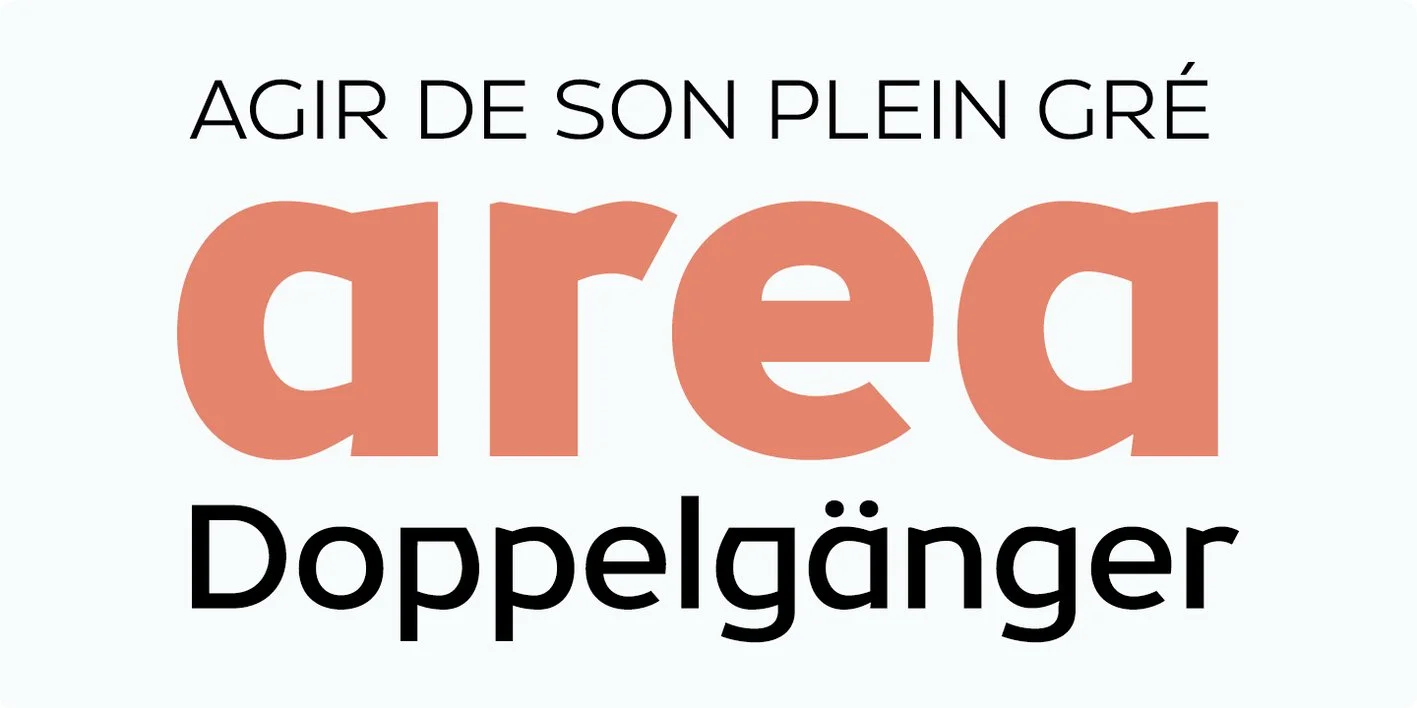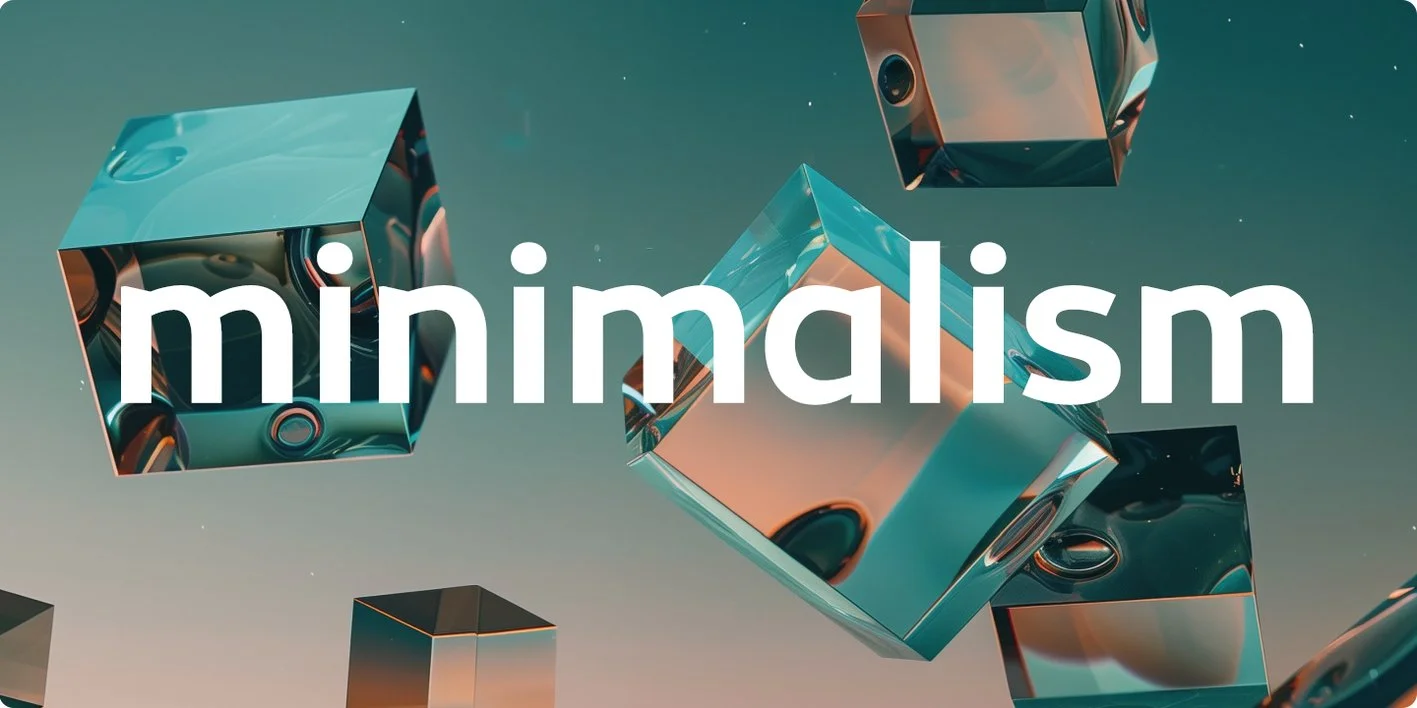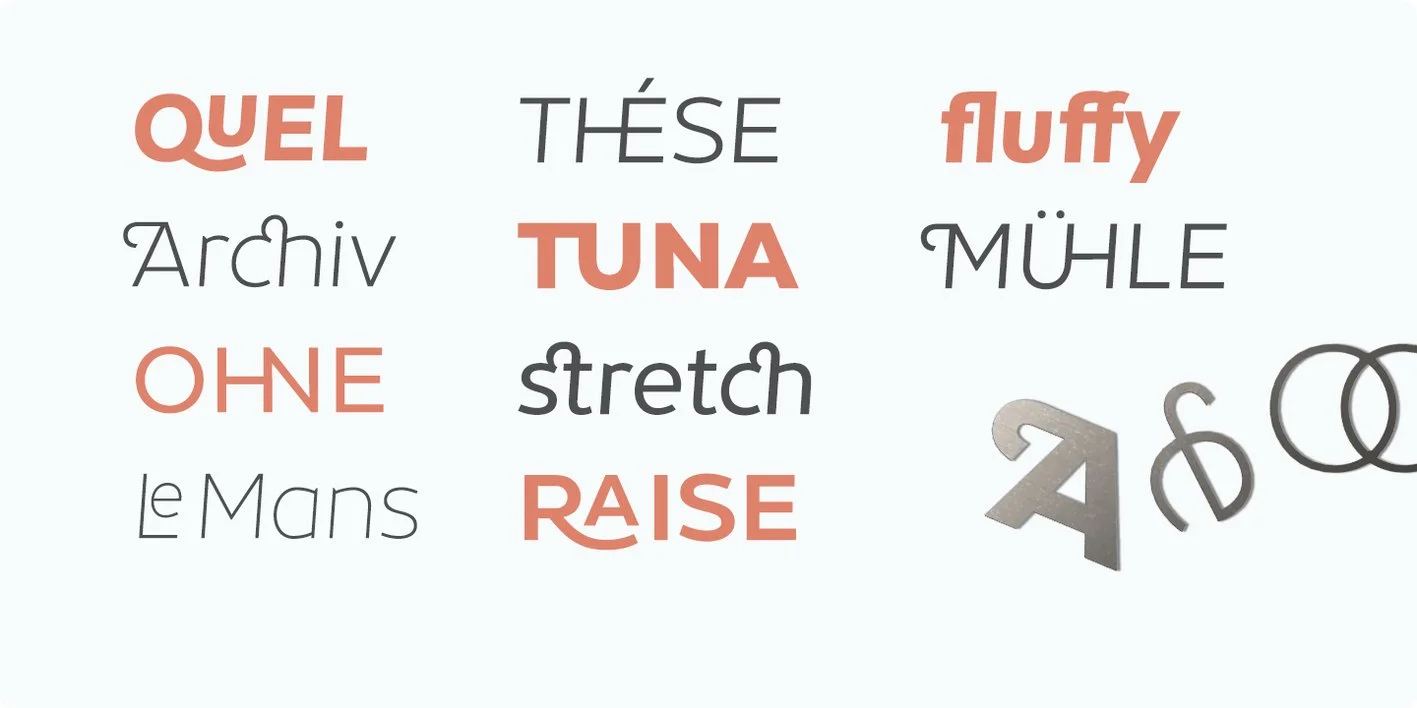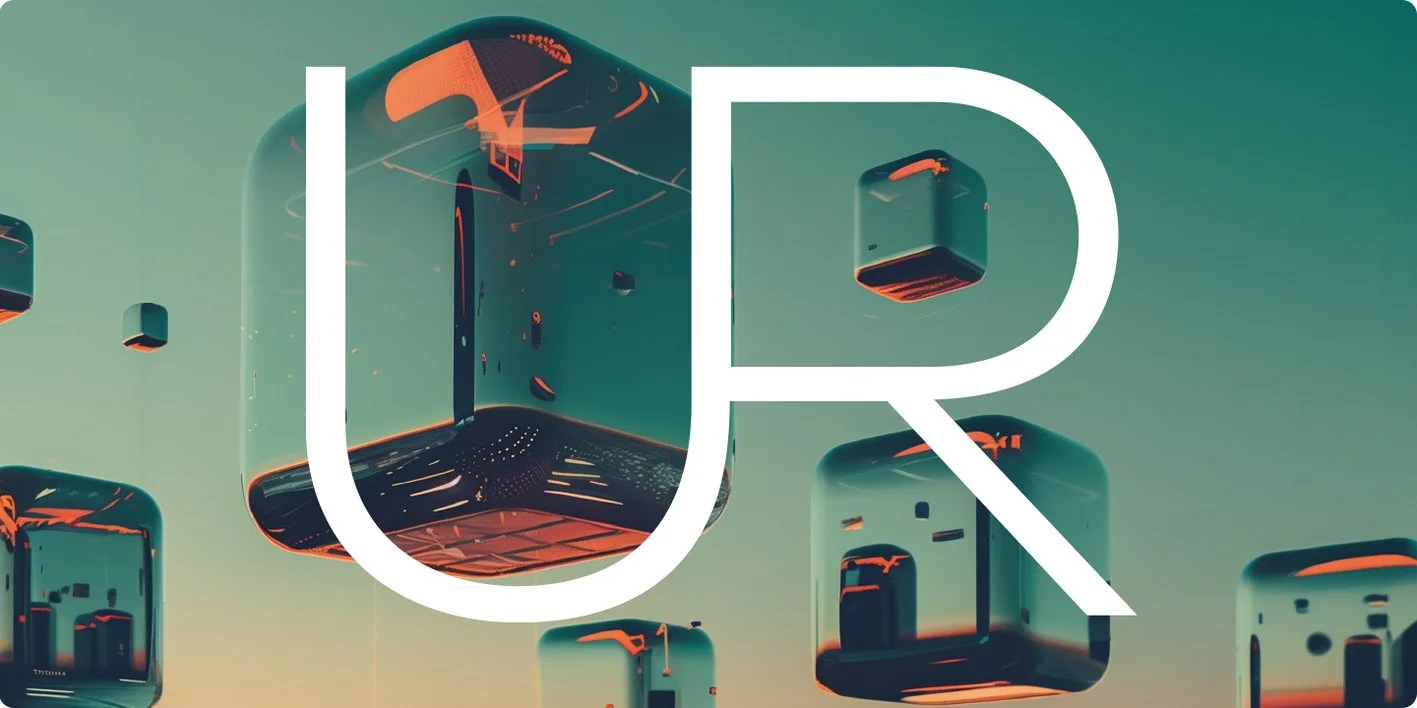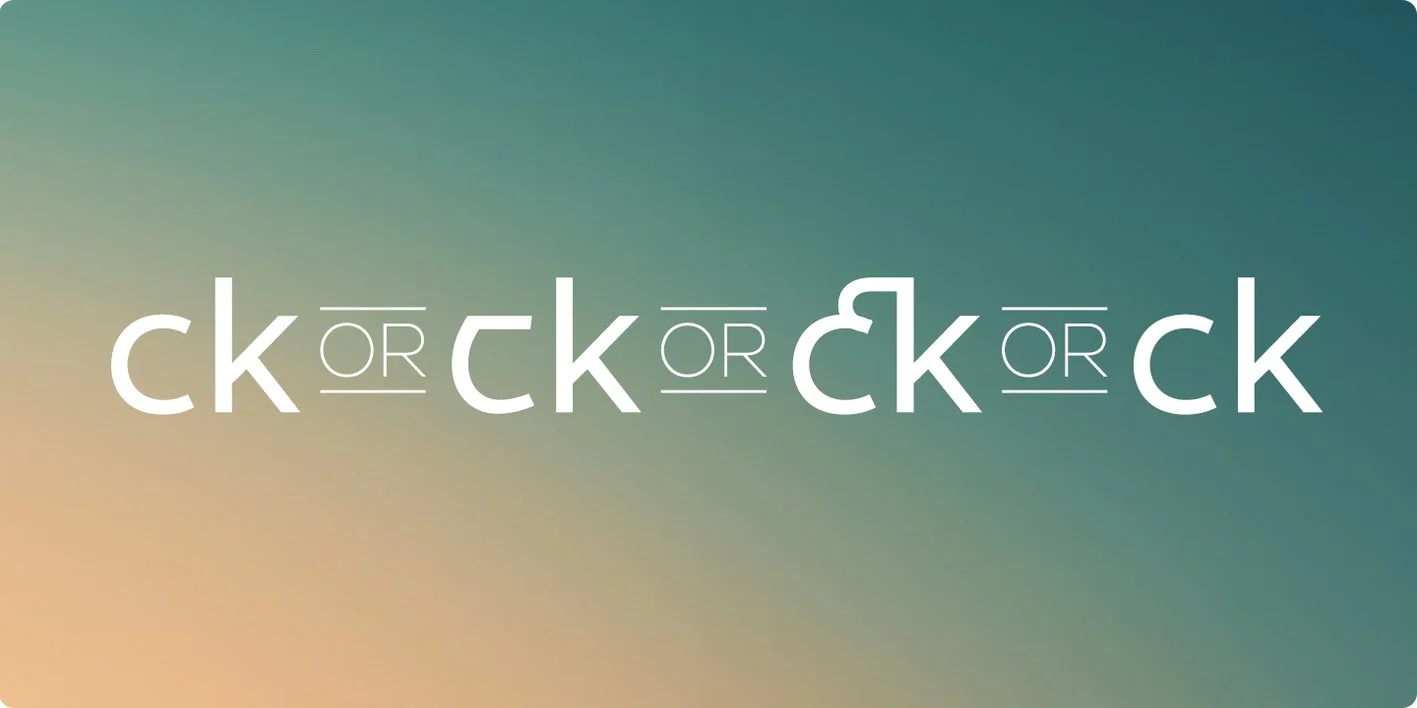
Object Font
Typography shapes perception at a subconscious level. Object leverages visual harmony and precise spacing to make every composition feel considered. The typeface brings a versatile sensibility to a broad range of creative disciplines, with optical balance across all weights that holds up whether the work is print-first or screen-first.
In practice, Object proves particularly effective for social media graphics, annual reports, advertising campaigns, signage systems, editorial layouts. Designers reaching for it find that the type decisions feel resolved rather than laboured — a useful quality when client timelines are tight.
The range of applications extends to environmental graphics, web design, packaging design, product labels. That breadth is deliberate: the proportions and spacing were stress-tested across a wide range of mock briefs before the typeface was finalised.
The proportions balance x-height, cap height, and ascender length to produce a face that reads confidently at body copy sizes without losing presence at display scale. Sidebearings were derived from visual rhythm testing rather than mathematical calculation alone.
Brand strategists building visual languages find Object a reliable choice for projects that demand both personality and restraint. The design avoids the self-conscious quirkiness that dates quickly, settling instead for considered distinctiveness that holds up over time.